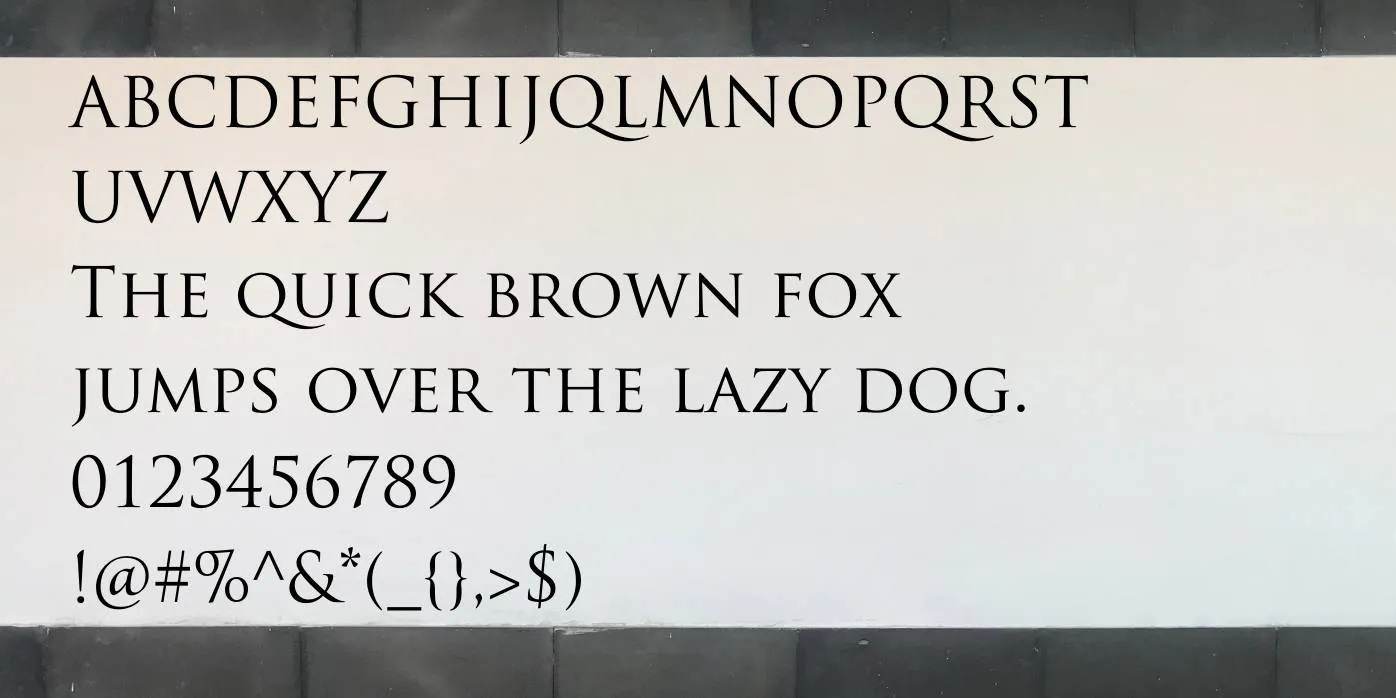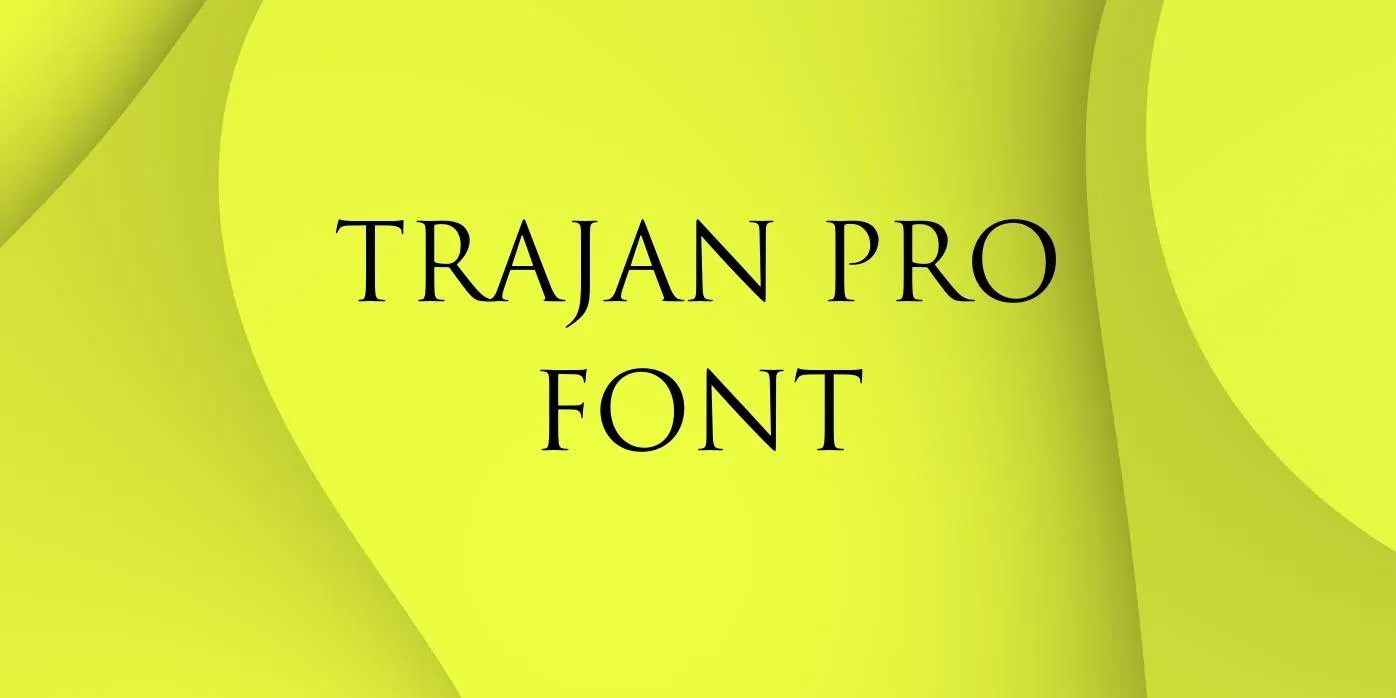
Trajan Pro Font
Introducing the most fantastic typeface with a light stroke and great writing visual that is Trajan Pro Font. That belongs to a Serif typeface family and the designers of this breathtaking typeface are carol Twombly and Robert Slimbach. You can also have a look at this typeface on Adobe Fonts. It has two weights includes regular and bold typeface.
Its Bold style has OTF features while its Regular style has TTF features and both styles have Lowercase letters with small X-height and Uppercase letters, Numbers and Numerals, and compulsory symbols also. The font supports many languages and accents for international users. Its character has a very unique serif style with a great light stroke. You can get its more weight on the adobe fonts web portal.
This typeface might be designed for body text.